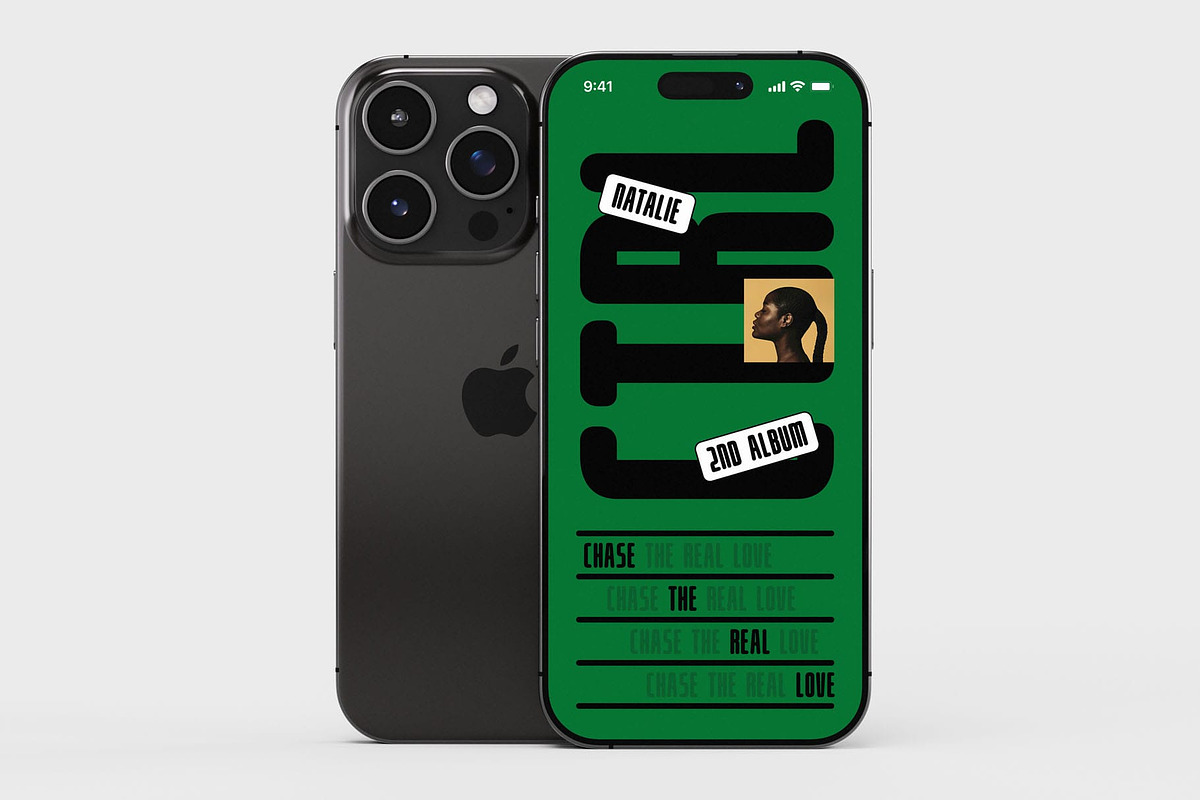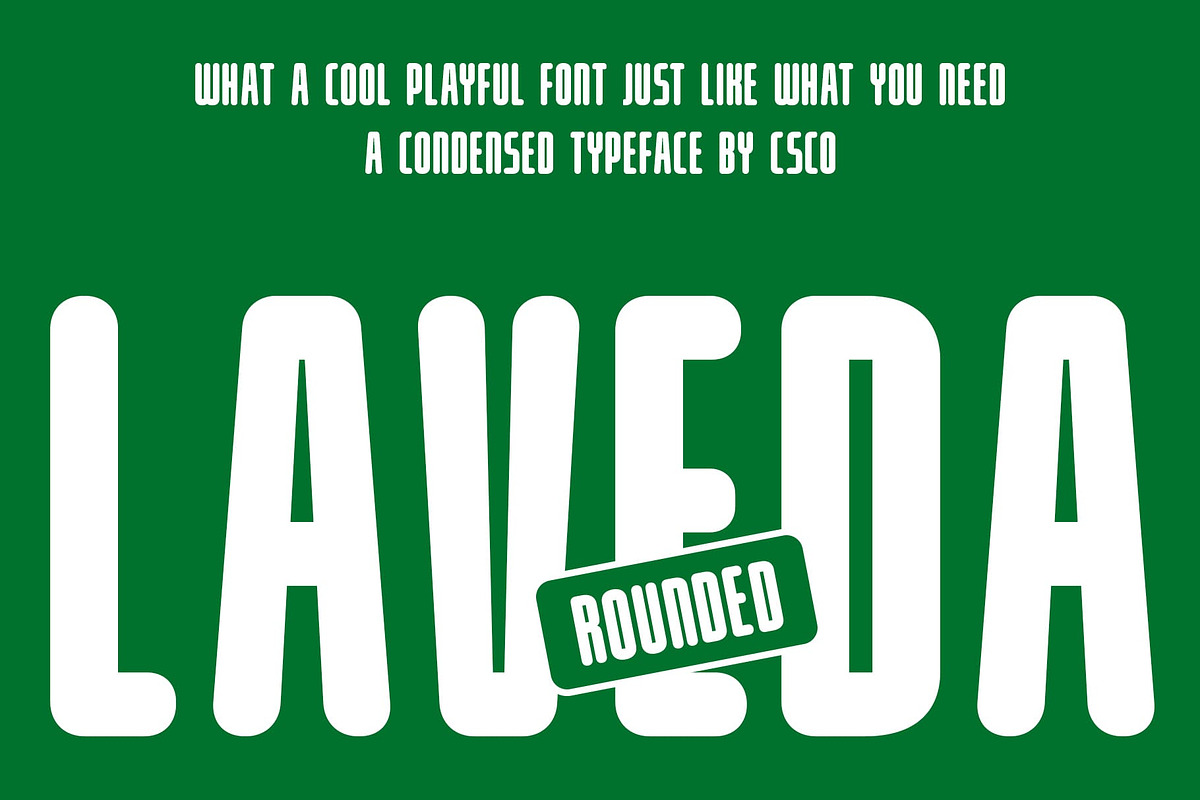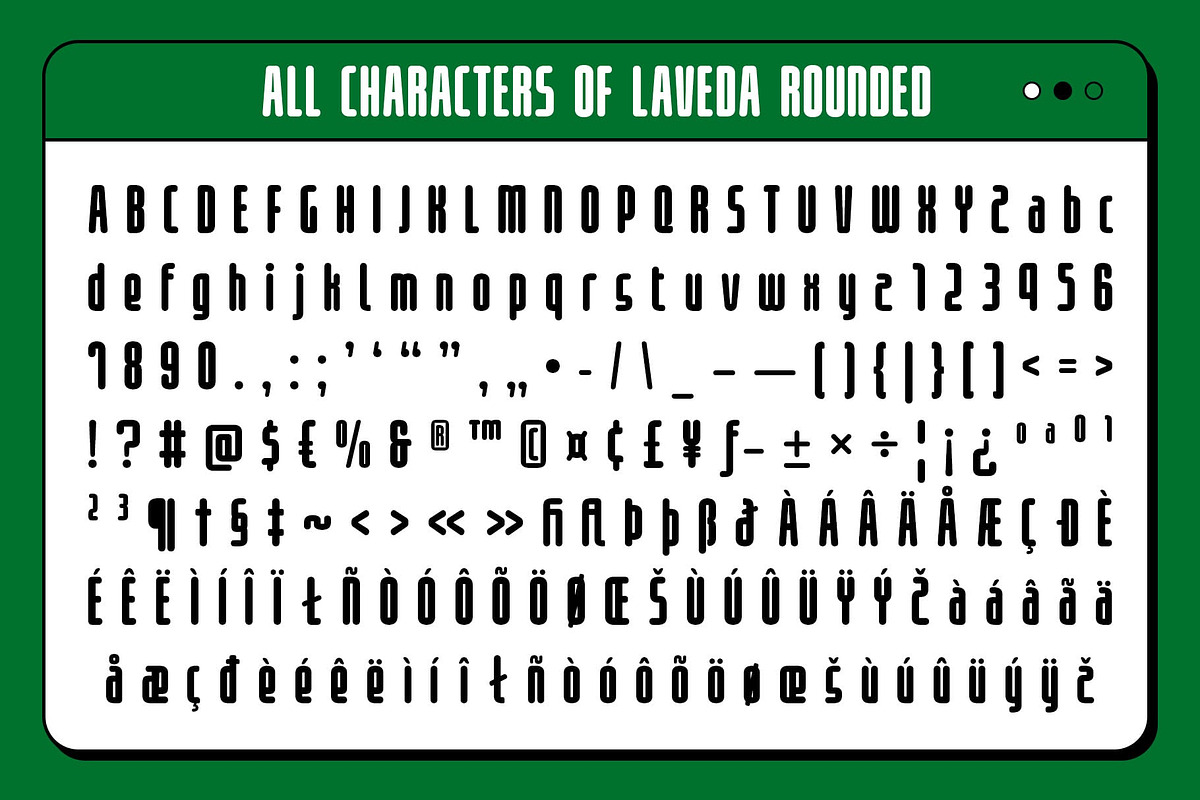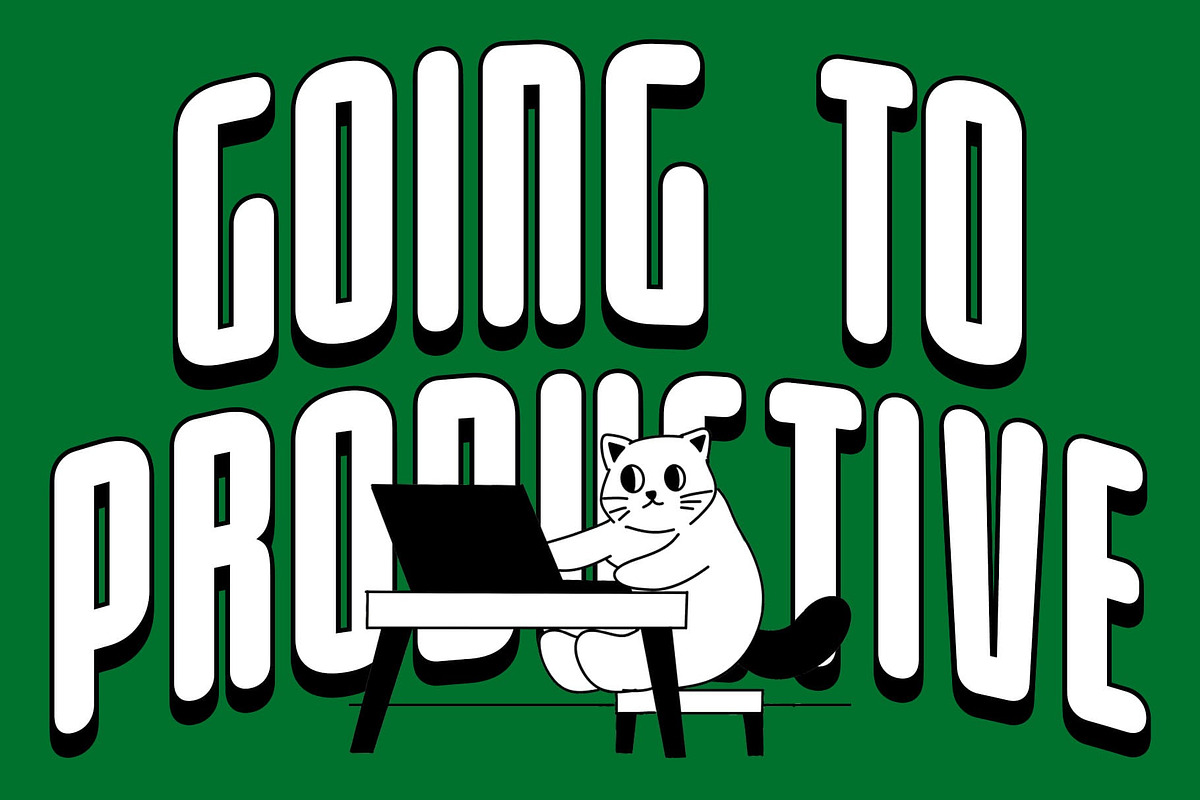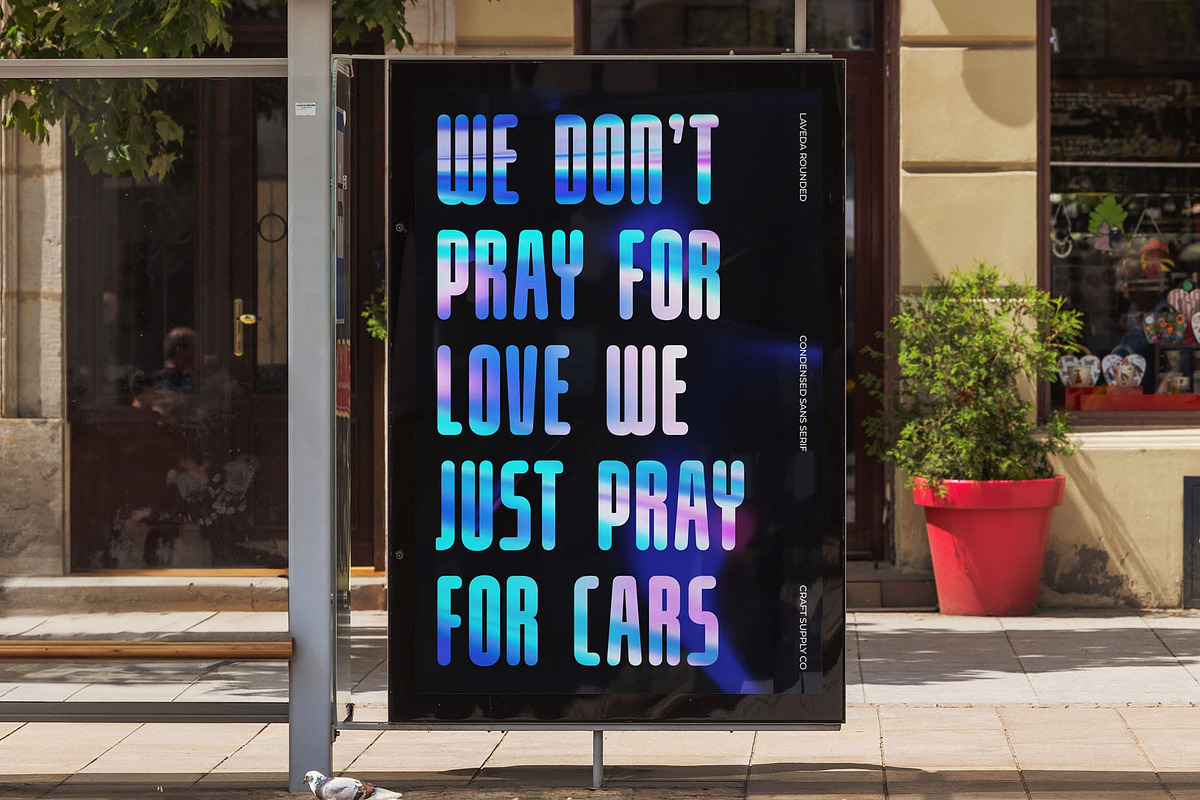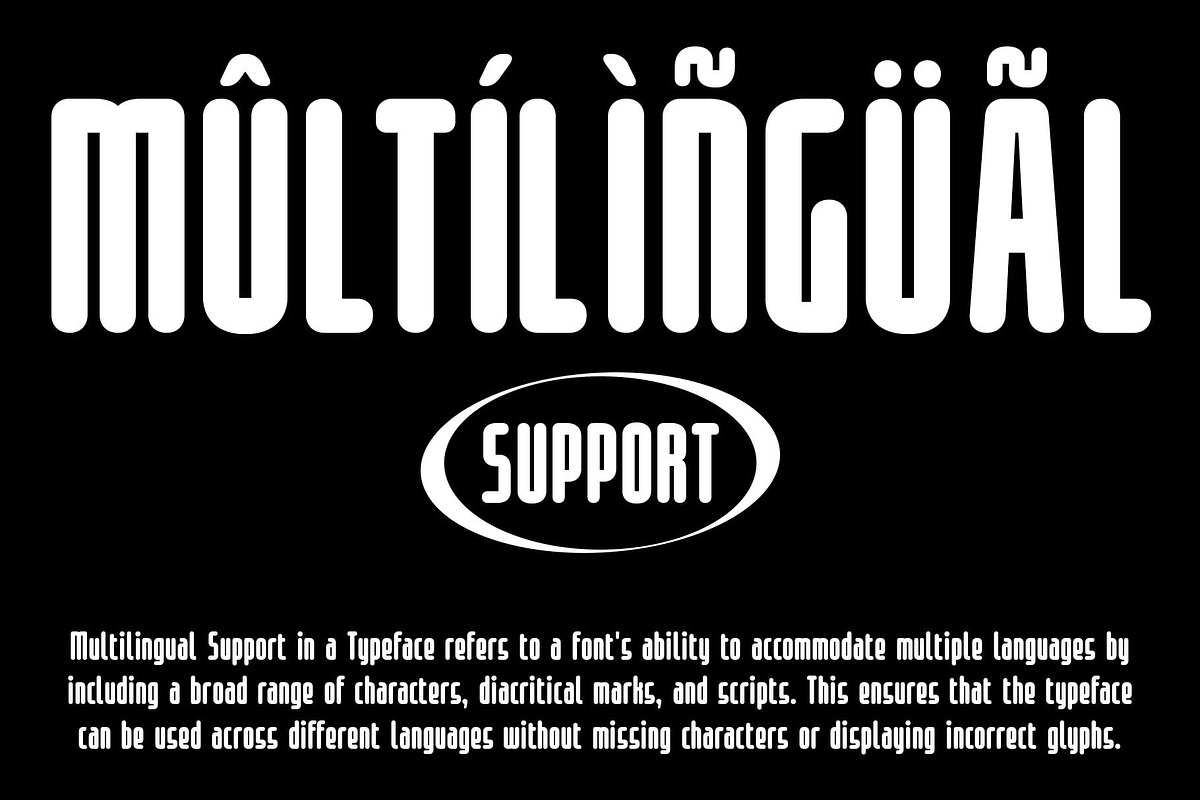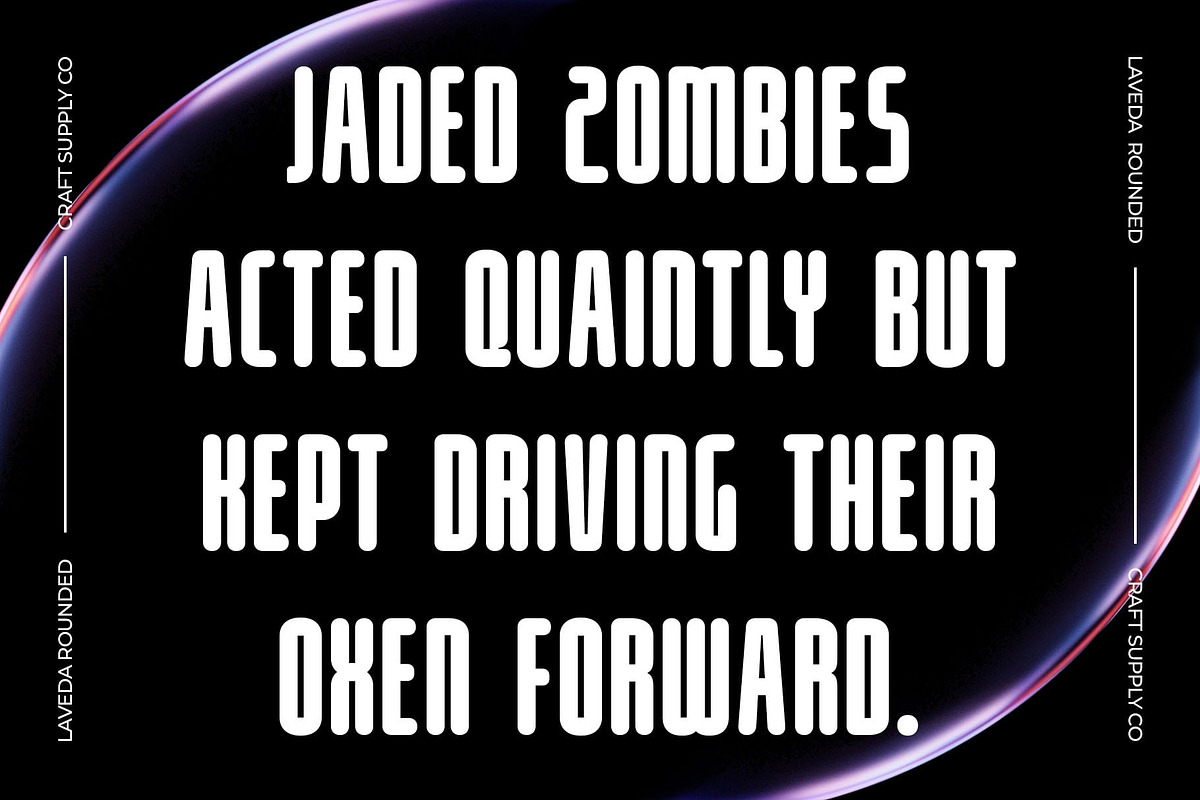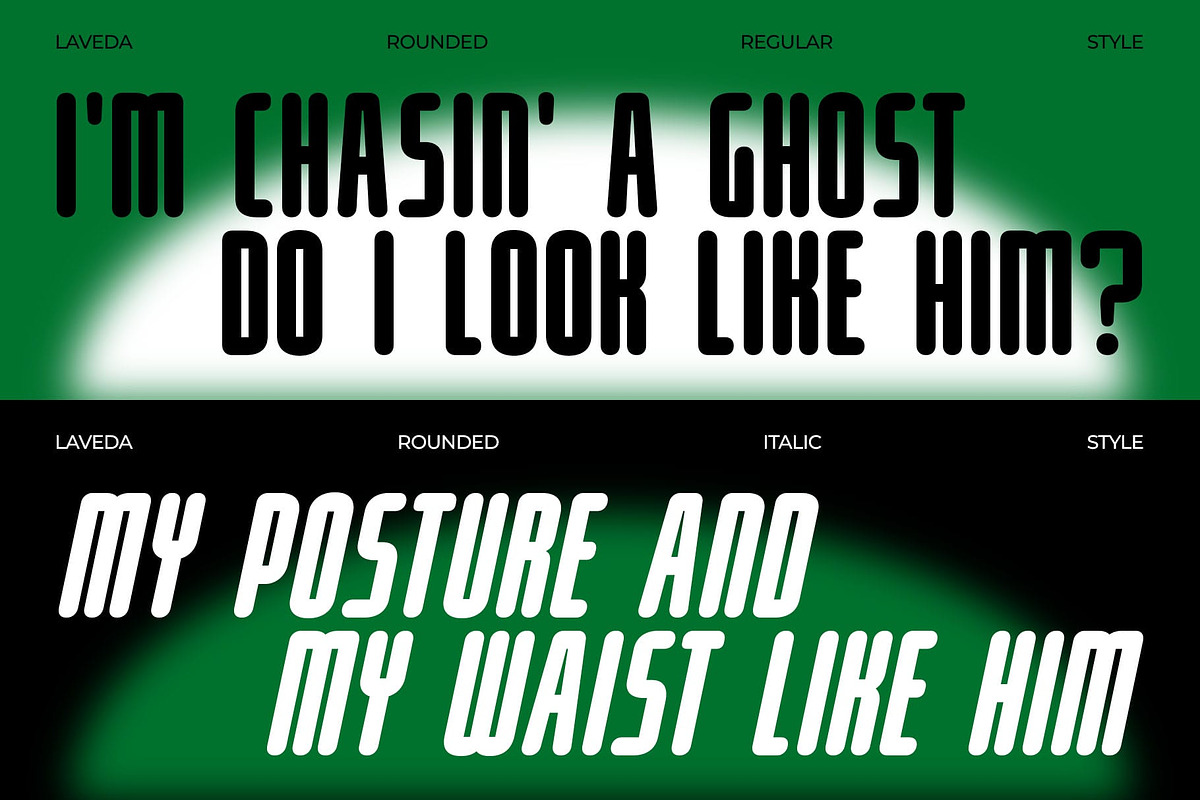
Laveda Rounded
Laveda Rounded Font – Bold Simplicity with a Friendly Twist
Modern Sans-Serif with Rounded Style Laveda Rounded is a modern sans-serif font defined by its bold, rounded letterforms and clean geometric structure. It strikes a balance between strength and softness—delivering a confident yet approachable feel for a wide range of design needs.
Rounded Forms for Warmth and Approachability The gently curved terminals soften the bold shapes, giving Laveda Rounded a friendly and inviting appearance. This makes it perfect for brands and creatives looking to connect with audiences through warmth and clarity.
Bold Weight for Strong Visual Presence Its bold construction ensures high legibility and strong visual impact, even at smaller sizes. Whether used in headlines, logos, or interface design, Laveda Rounded maintains its clarity while offering a distinct personality.
Contemporary Style for Versatile Use With its modern structure and minimal aesthetic, Laveda Rounded adapts seamlessly across digital and print formats. It works beautifully in creative branding, UI/UX, promotional graphics, and editorial layouts.
Ideal for Characterful and Modern Designs From playful branding to bold digital interfaces, Laveda Rounded is designed to make your message stand out with a touch of charm. Its versatility makes it a go-to font for any project aiming to appear contemporary, clear, and character-driven.
- Laveda Rounded Regular
- Laveda Rounded Italic